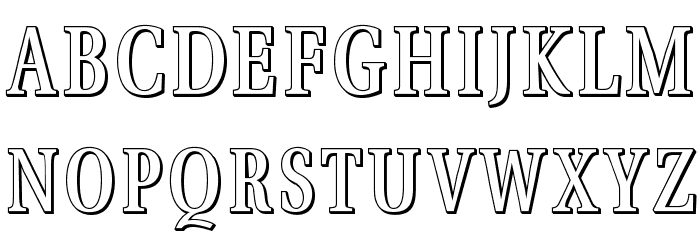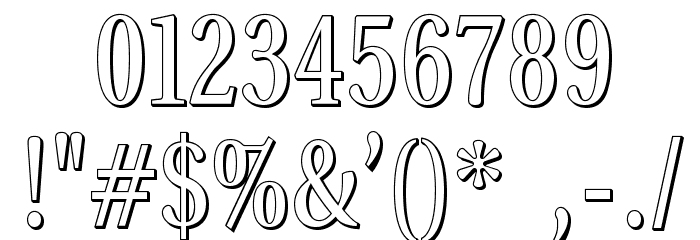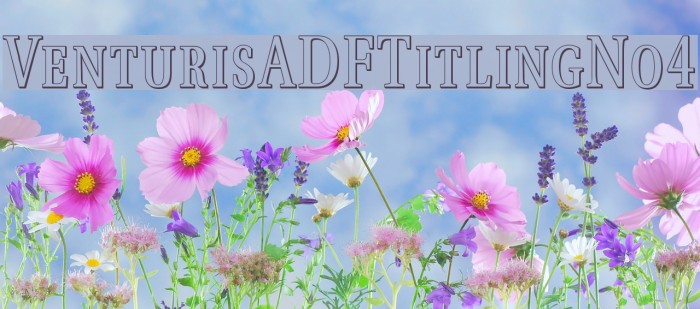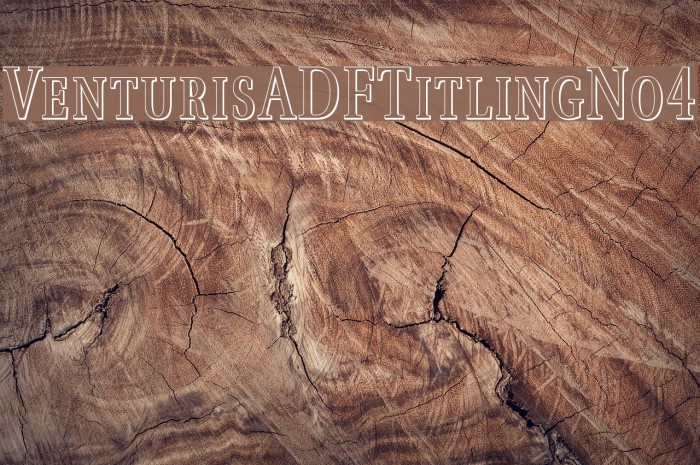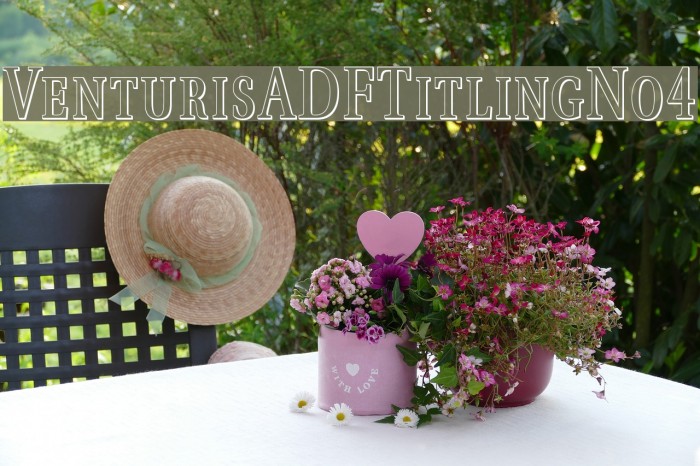
VenturisADFTitlingNo4 Font
This font features a classic serif style with a modern twist, characterized by its elegant and refined letterforms. The uppercase letters are bold and commanding, while the lowercase letters maintain a consistent and harmonious flow. The numerals are clear and easily distinguishable, making them suitable for various applications. The special characters are thoughtfully designed to complement the overall aesthetic, ensuring versatility in usage. The font's structure is well-balanced, with a medium contrast in stroke thickness that adds to its readability and visual appeal.
A classic serif font with modern elegance and medium contrast.
- Proposed Projects: Ideal for editorial design, book covers, branding, and formal invitations.
- Overall Style: Classic